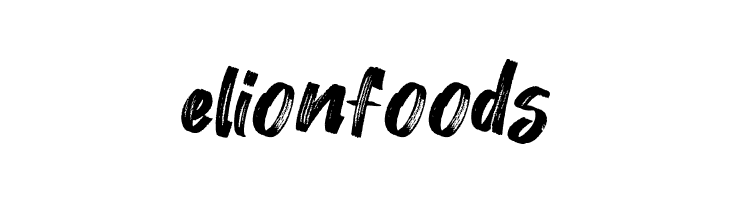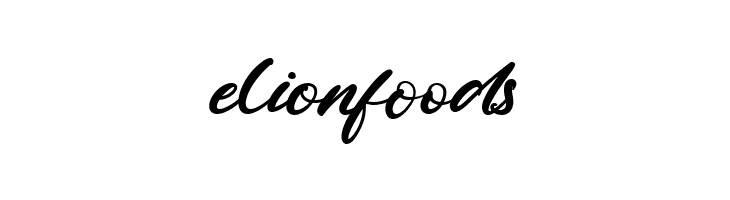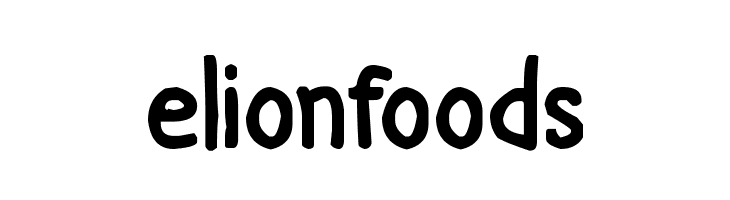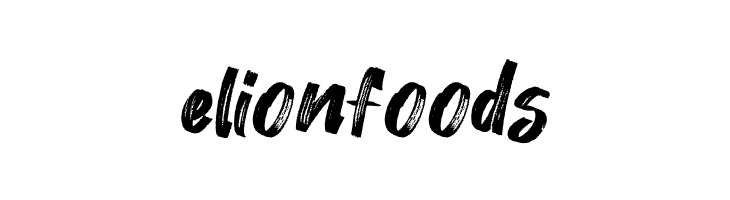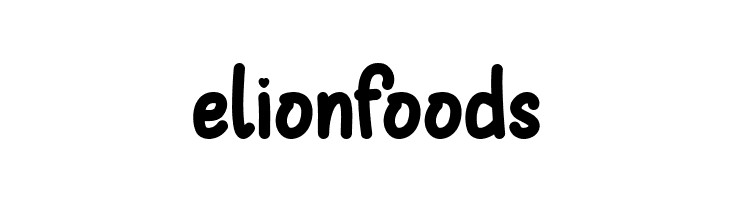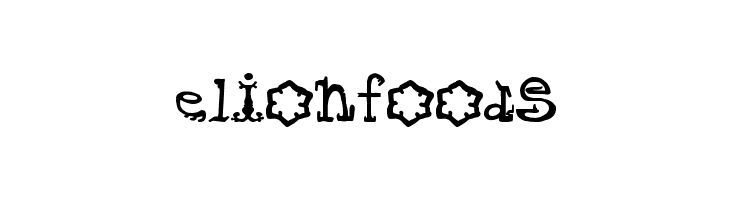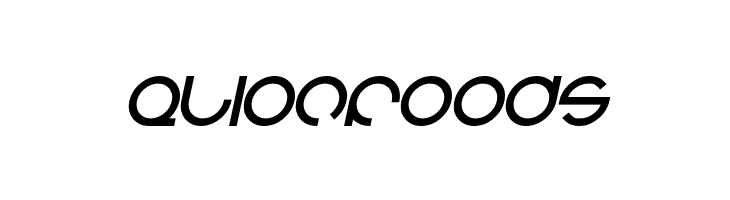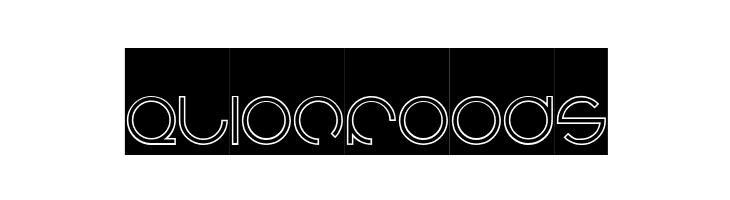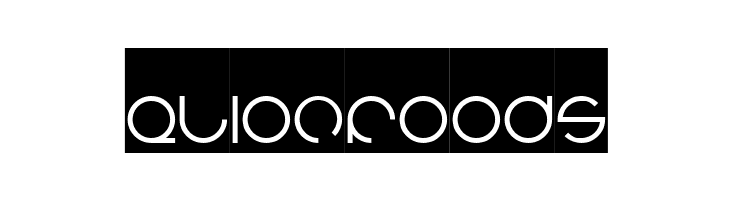
• Haylow Marker
A playful, handwritten marker-style font with bold, rounded characters.
• Headstrong
Energetic, handwritten script with tall, narrow forms and expressive strokes.
• Heartisan
A bold, geometric font with a futuristic and modern design.
• Heartless
A jagged, edgy font with sharp, thorn-like characters.
• Heather Thomas
A futuristic, geometric font with circular motifs and bold strokes.
• Heather Thomas
A futuristic and geometric font with smooth curves and a modern aesthetic.
• heelenia
A playful and elegant script font with a handwritten style.
• helen
A futuristic and geometric font with clean lines and rounded edges.
• helen
A modern, geometric font with a futuristic and minimalistic design.
• Helicopta
A bold, angular font with a futuristic and aggressive style.
• Hello Anissta Script
A flowing, cursive script font with elegant curves and a hand-drawn look.
• Hello August Hand
A bold, handwritten font with a casual and artistic style.
• Hello Avelline-DEMO
Handwritten cursive script font.
• Hello Beach
A casual, elegant handwritten font with fluid, connected characters.
• Hello Brady!
• Hello Brady's Dad!
• Hello Christmas - Free
A playful, handwritten font with a bold, whimsical style.
• Hello Crafter - Personal Use
A playful, bold script font with a handwritten feel.
• Hello Magnolia
An elegant, flowing script font with graceful, interconnected characters.
• Hello Olivia Italic
An elegant, flowing script font with a sophisticated and graceful appearance.
• Hellobean
Playful, bold handwritten font.
• Hells Rider